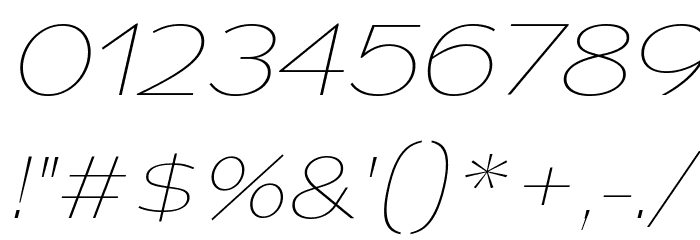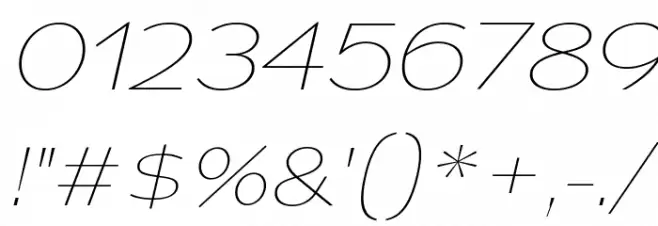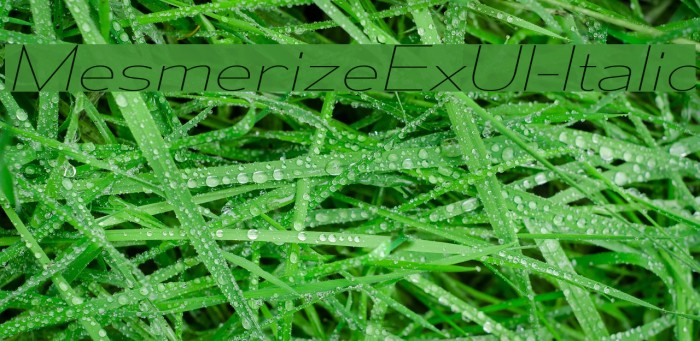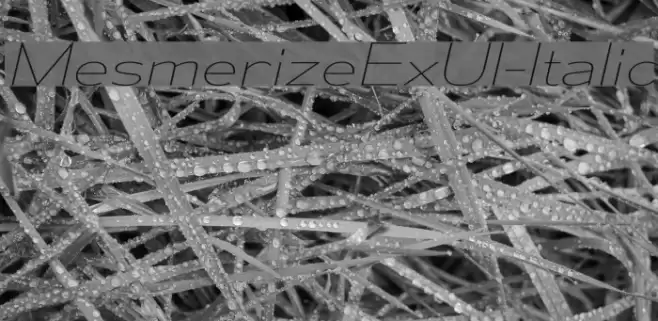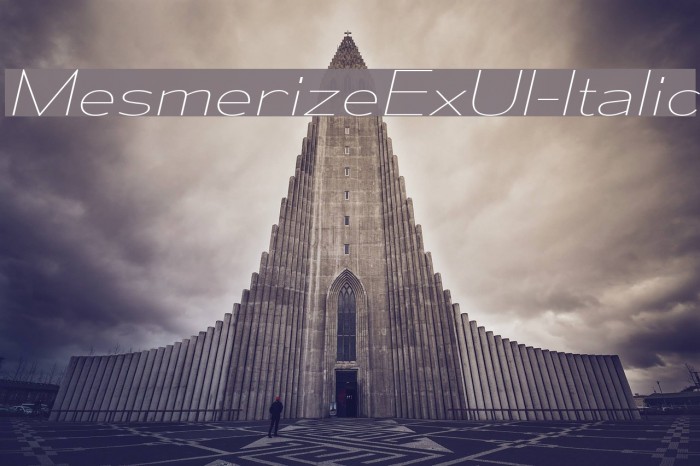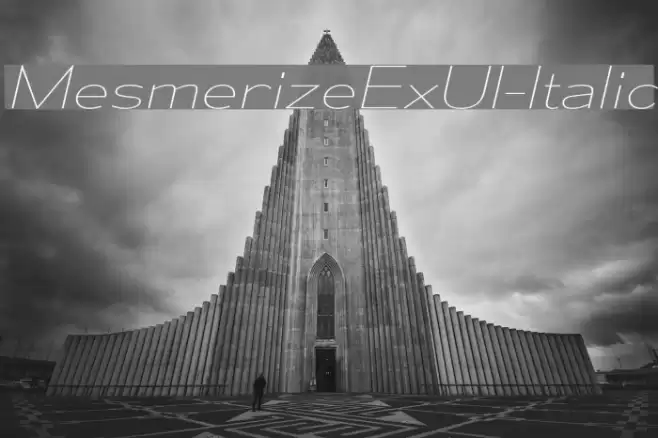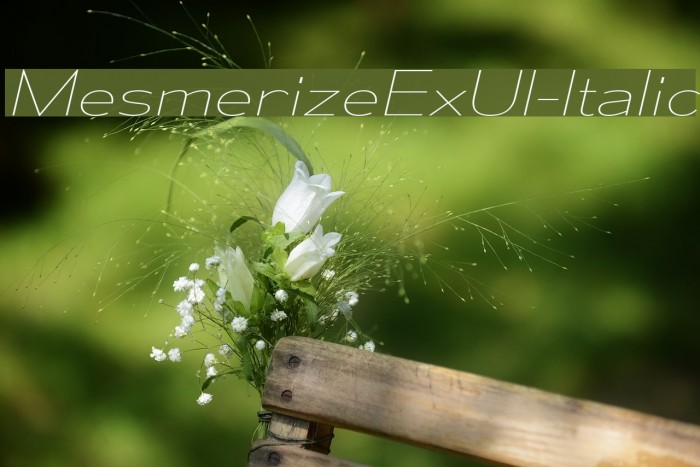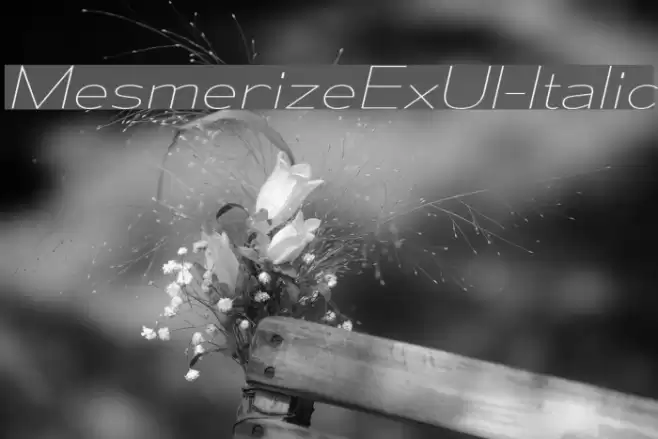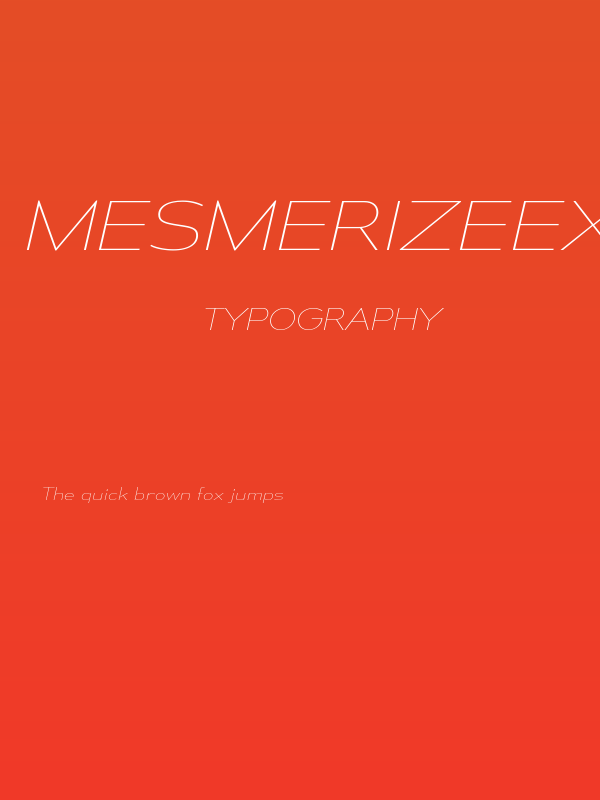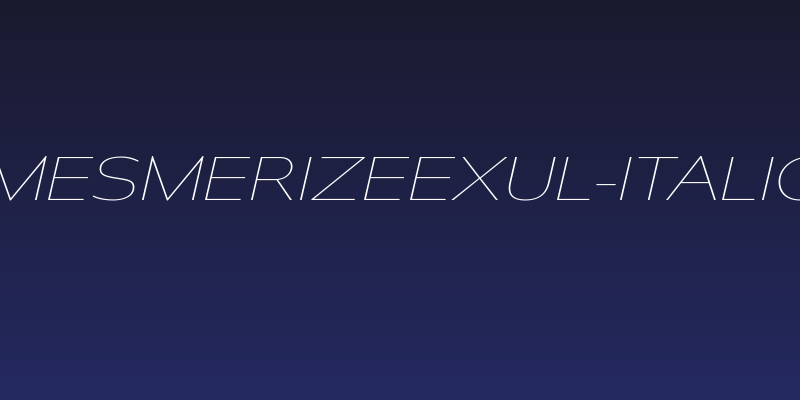
MesmerizeExUl-Italic Font
MesmerizeExUl-Italic Description
This font exhibits a sleek and modern aesthetic with its italicized form, characterized by clean lines and a minimalist design. The uppercase and lowercase letters maintain a consistent slant, enhancing the fluidity and elegance of the typeface. The numerals are distinct and align well with the overall style, ensuring readability and a cohesive look. Special characters are well-integrated, maintaining the font's streamlined appearance. The thin strokes and uniform weight contribute to its sophisticated and contemporary feel, making it suitable for a variety of design applications.
| Proposed Projects | Ideal for modern branding, fashion magazines, elegant invitations, and sleek website headers. |